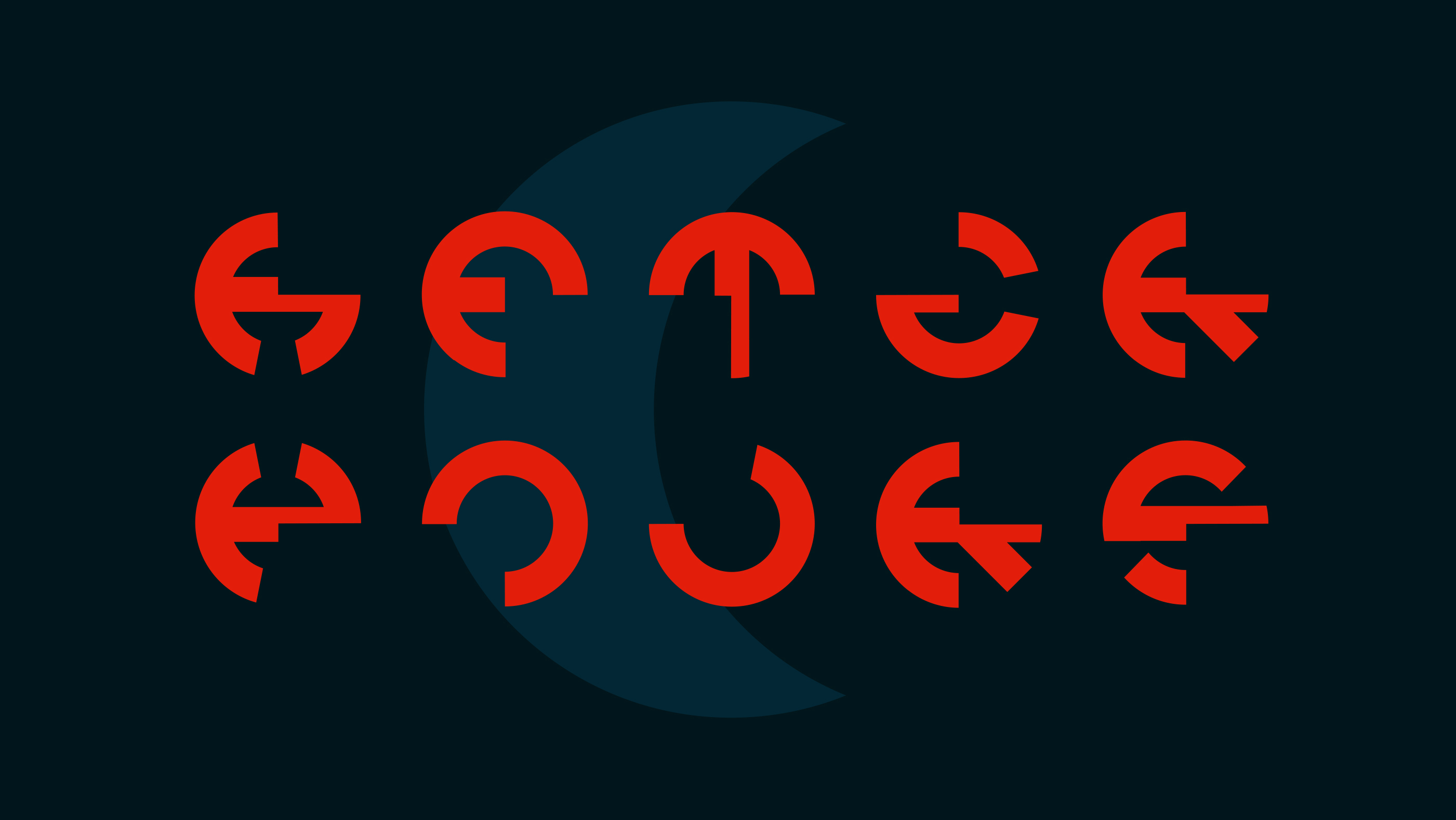
After Hours
The lettering is based on circular shapes to reflect the concept of time. Each letter features a quarter cutout that progressively shifts from one letter to the next, visually expressing the passage of time.